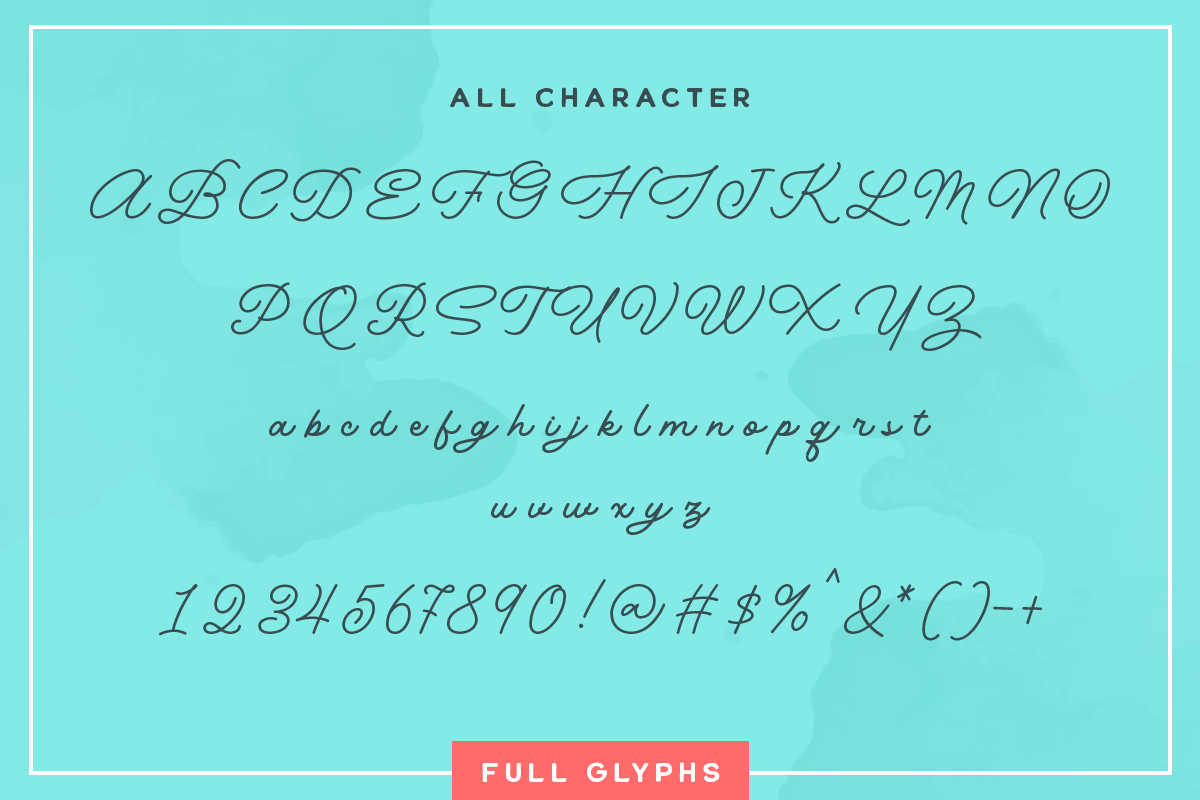
Kinderline - Joy & Playful Script
Introducing, Kinderline, a joy and playful monoline script typeface. Very suitable to be used as a headline, instagram post and stories, logos, magazines, books, greeting / wedding cards, packaging, fashion, make up, stationery, novels, labels or any type of advertising purpose.
- alternates
- swashes
- contextual alternate